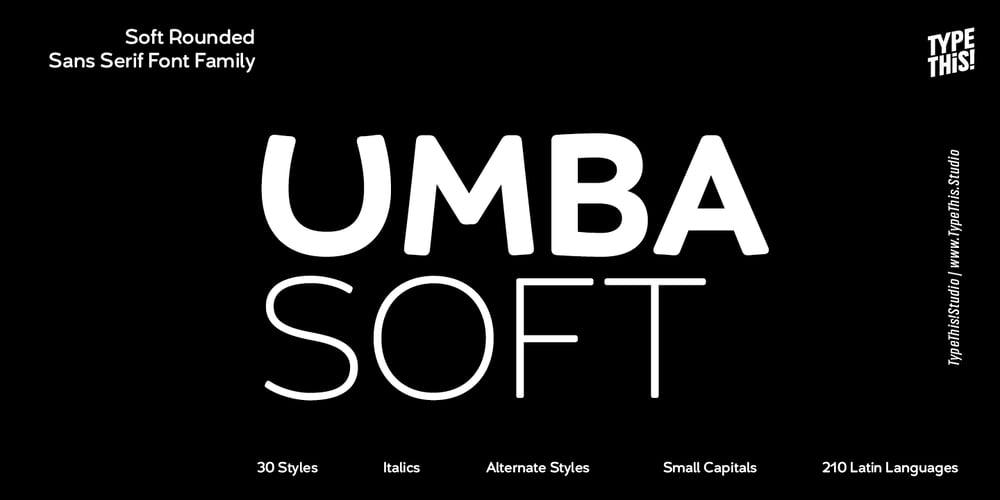
Umba Soft
Umba Soft font
Umba Soft Font Family was designed by Anita Jürgeleit and published by TypeThis!Studio. Umba Soft contains 30 styles and family package options. The best thing about Umba is its surprise!UMBA Soft is a mellow sans serif typeface designed by Anita Jürgeleit. Your creation should be soft and gentle and you need a suitable font? Something that should be cuddly, sweet and soft but a serious type family that covers all your concerns? Umba Soft is your match! Your typographic composition will improve with your new favourite font. Thirty styles from thin to bold and matching italics helps you to create a highly appealing design product. Alternates and small caps are accessible in separate styles. There is no need for any special software to use them. The styles will appear in your font menu to make sure you stay aware of the many possibilities that your new font offers. 30 styles Italics Alternates Small Capitals Predefined Fractions Sub-/Superscript Numerator/Denominator Old style figures Tabular figures Ligatures Let’s get in touch!www.typethis.studio